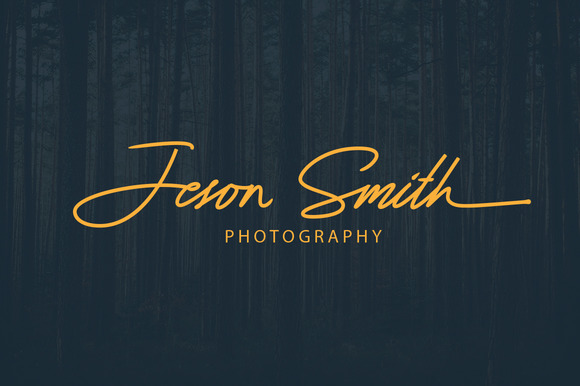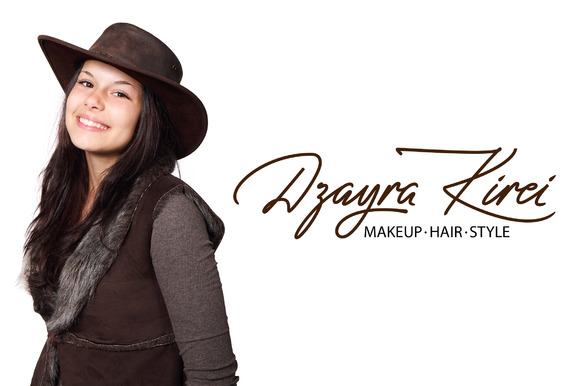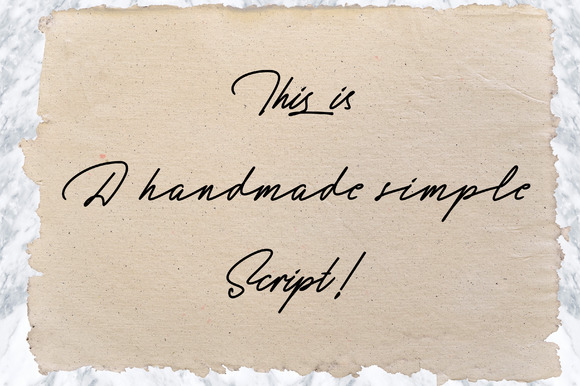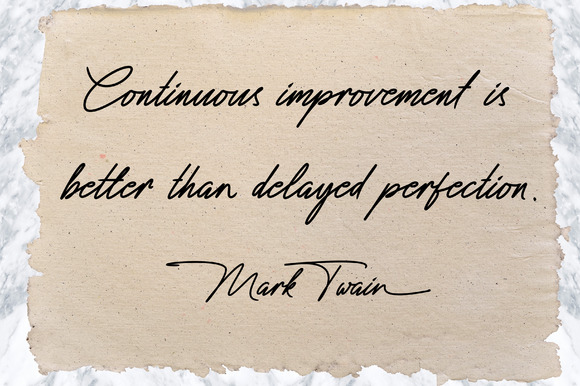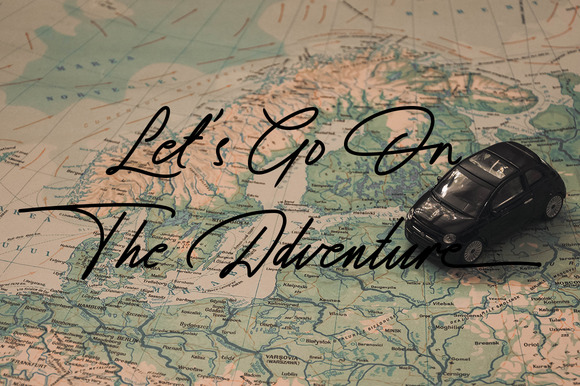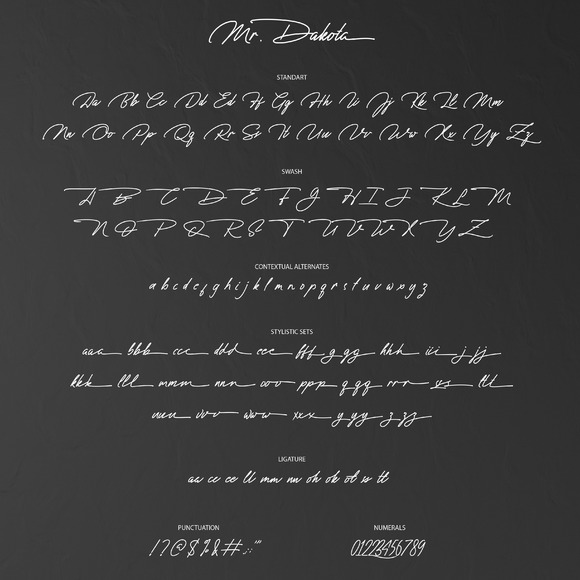
Introduction to Mr. Dakota Font Font
Fonts play a crucial role in design, and the Mr. Dakota Font font is a typeface that brings both character and versatility to any project. Whether you’re working on a branding project, a website, or a print design, the Mr. Dakota Font font offers a unique style that can elevate your work.
Mr.
Dakota script is a new fresh & modern script with a sweet calligraphy style and decorative characters .
Key Features of Mr. Dakota Font Font
Why Choose Mr. Dakota Font Font?
The Mr. Dakota Font font is more than just a typeface – it’s a design tool that helps you communicate your message with style and clarity. Its unique character set and versatile design make it suitable for a wide range of applications, from elegant invitations to bold headlines.
With its carefully crafted letterforms and balanced proportions, the Mr. Dakota Font font ensures readability and visual appeal across all mediums.
What makes Mr. Dakota Font font special?
The Mr. Dakota Font font stands out with its unique design, exceptional readability, and versatility across various design applications.